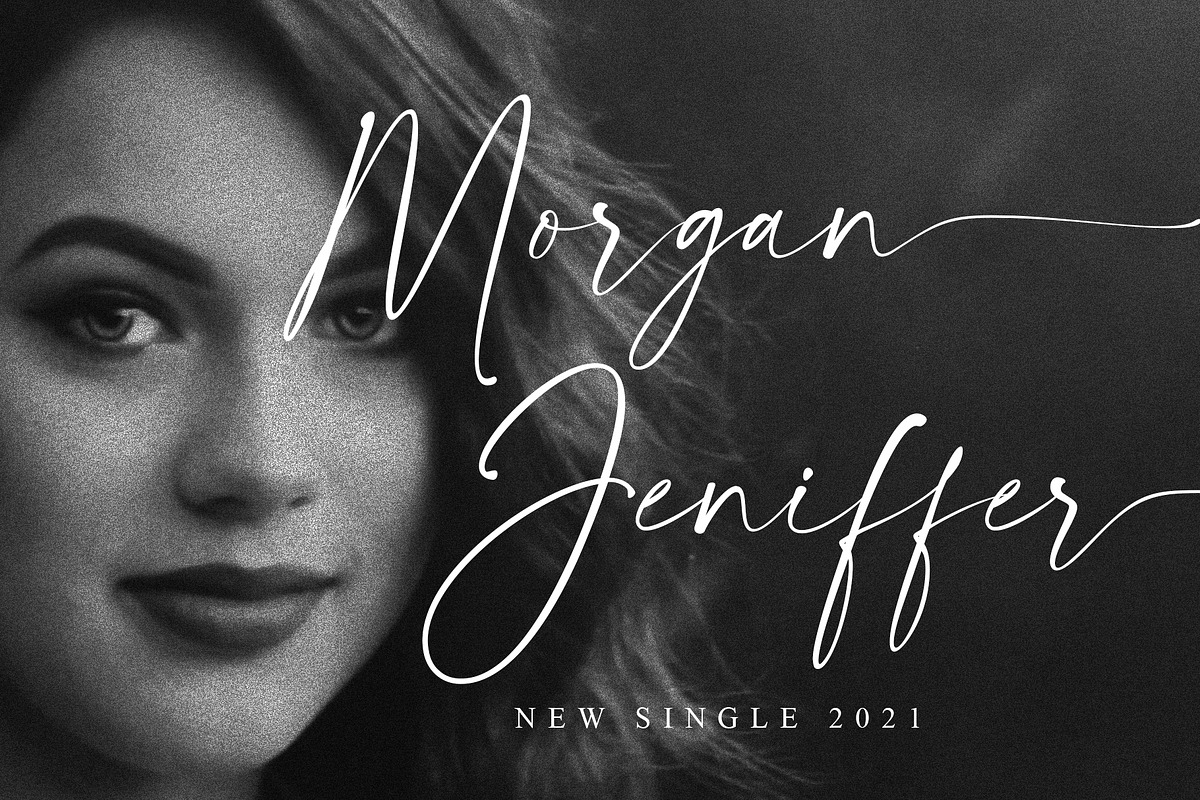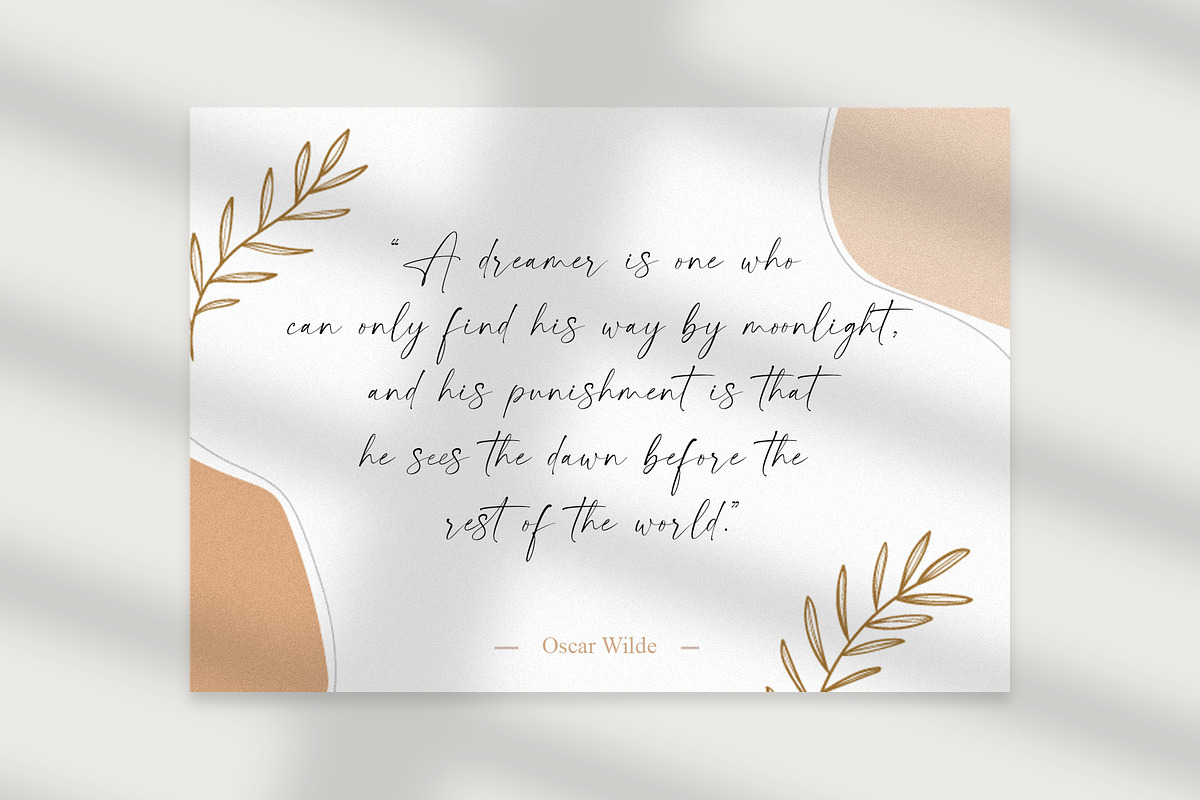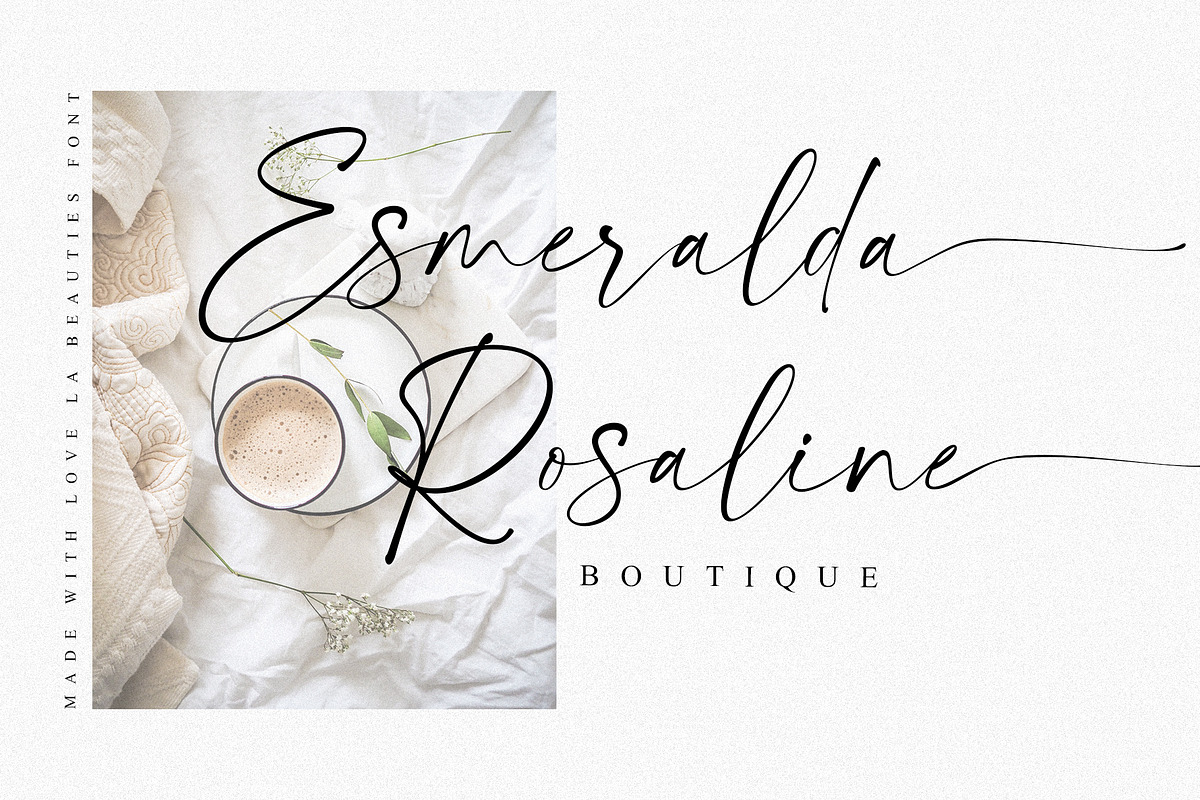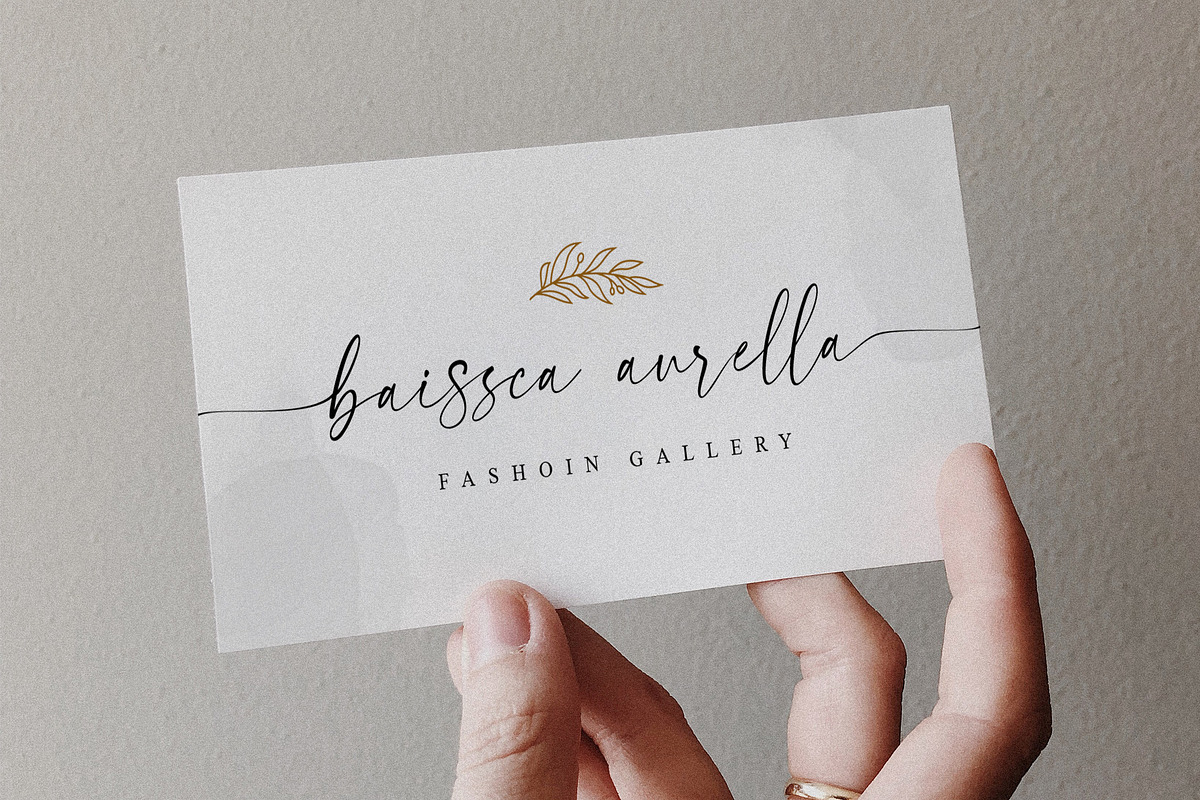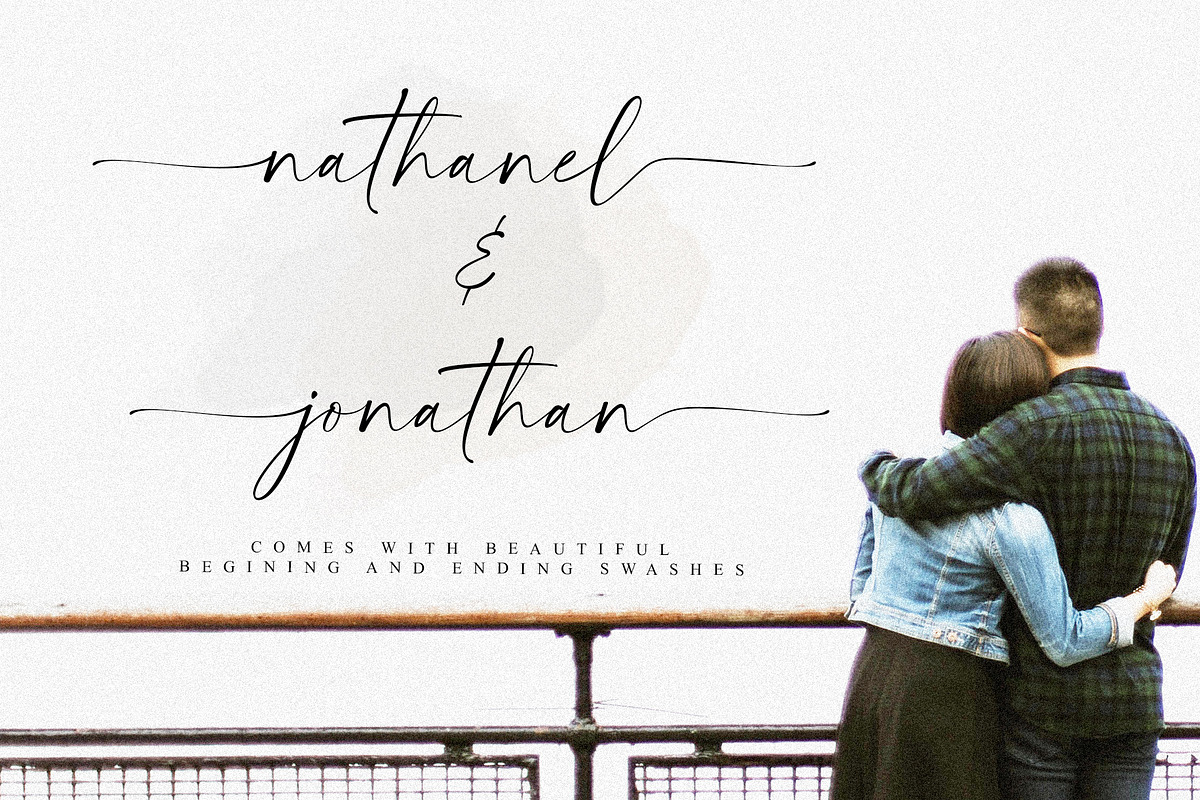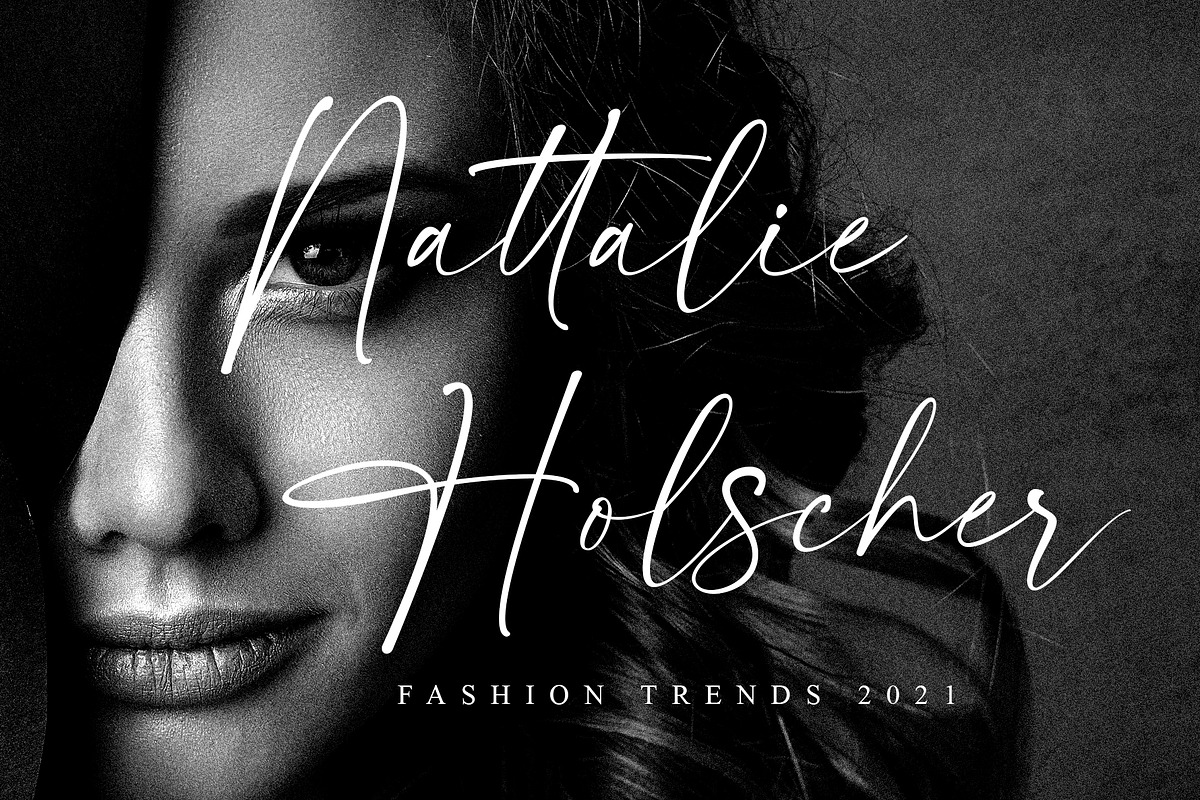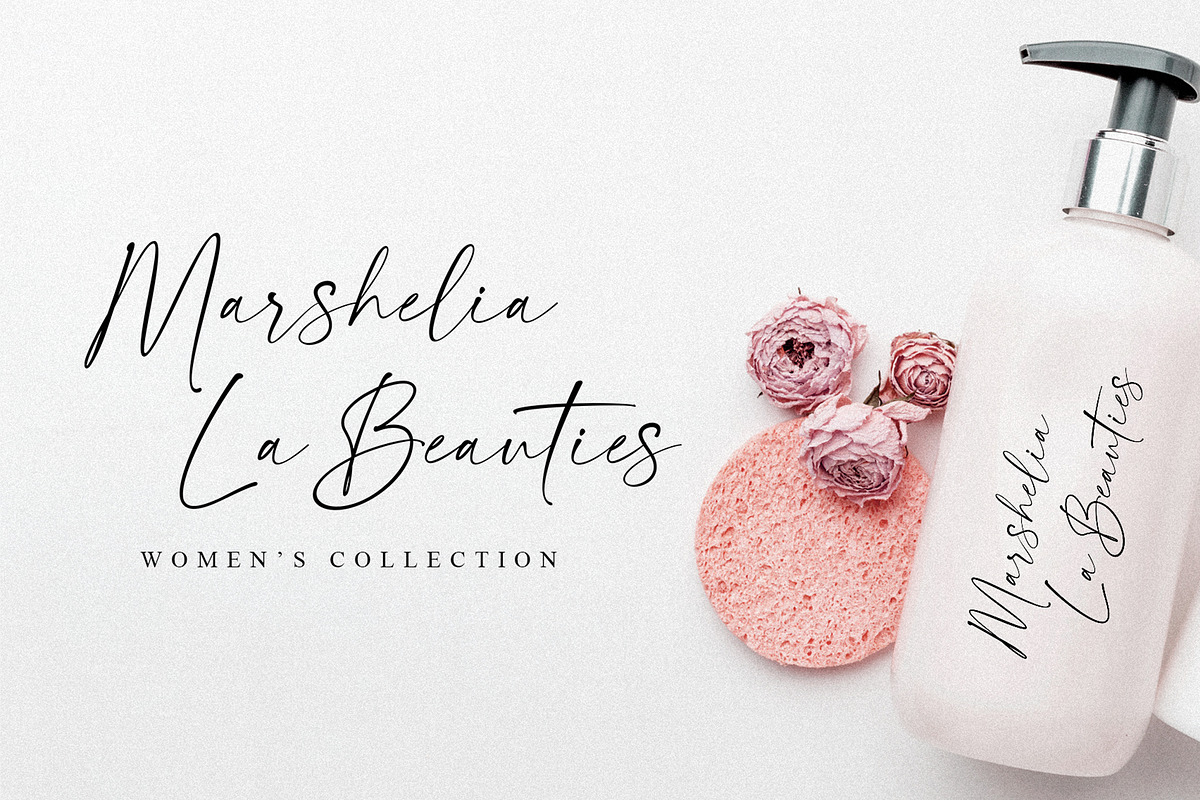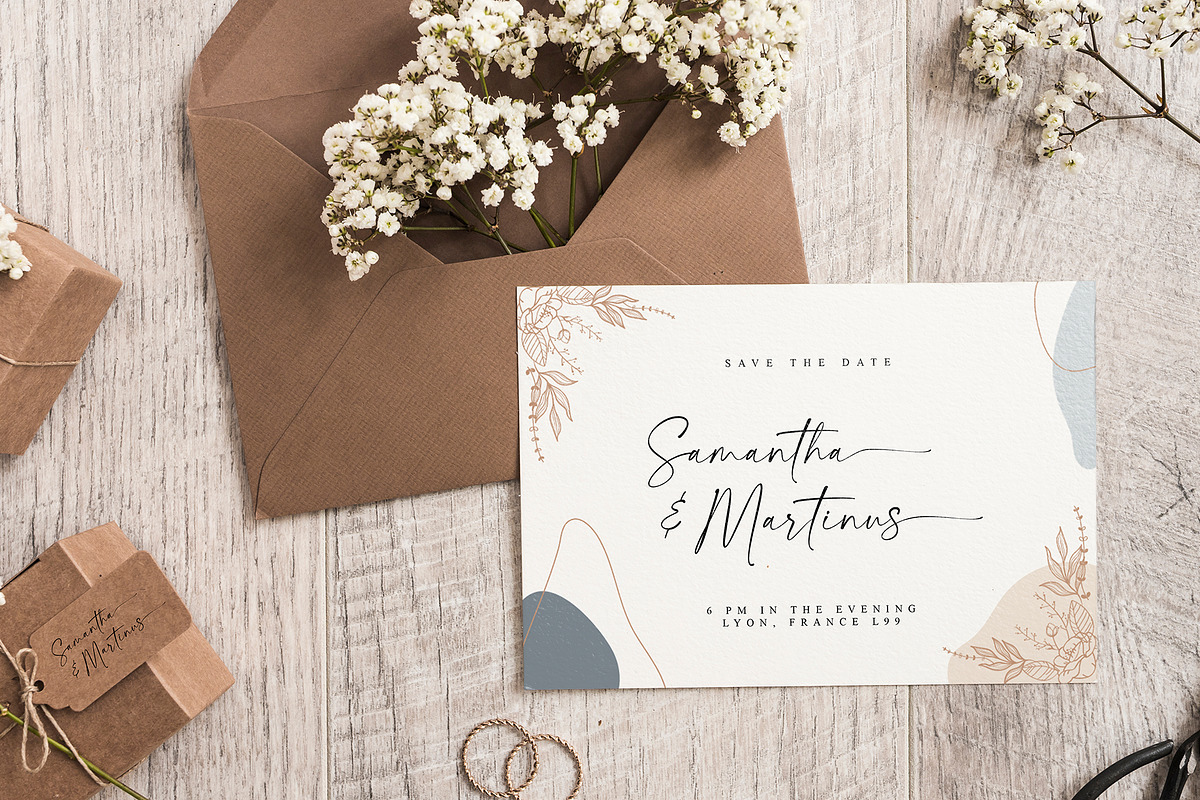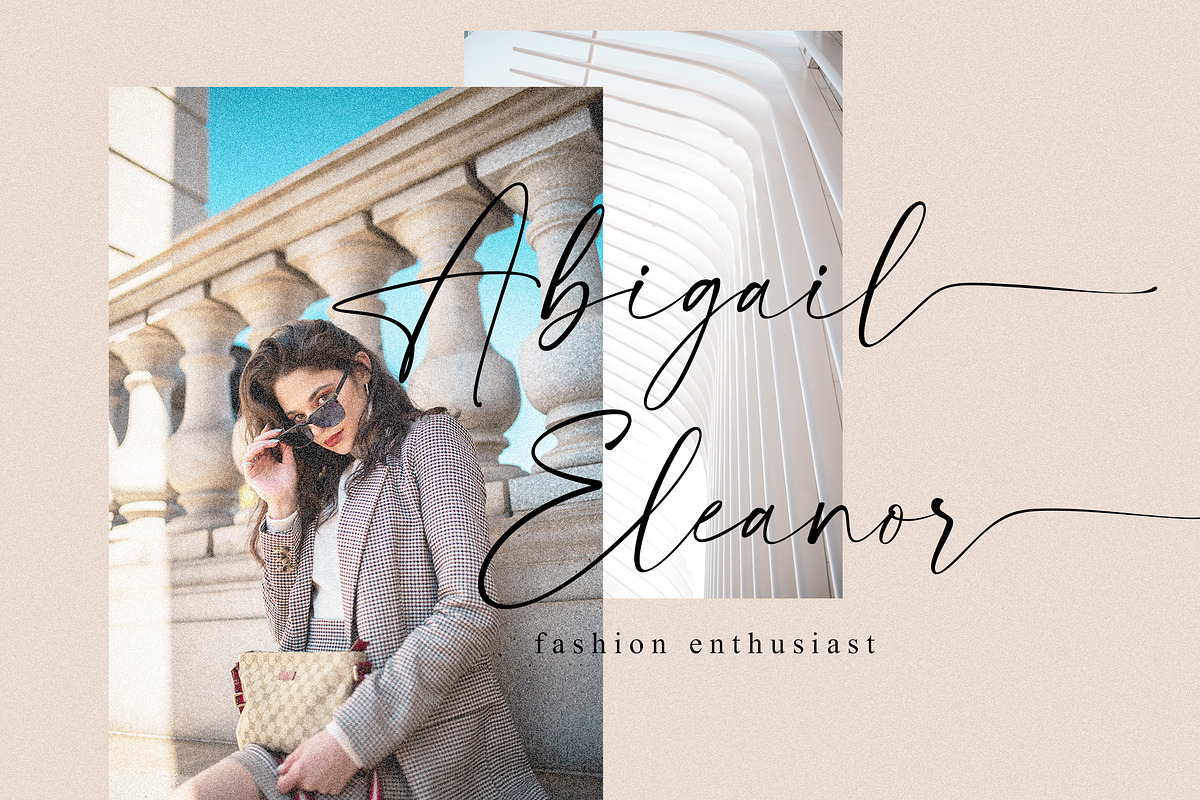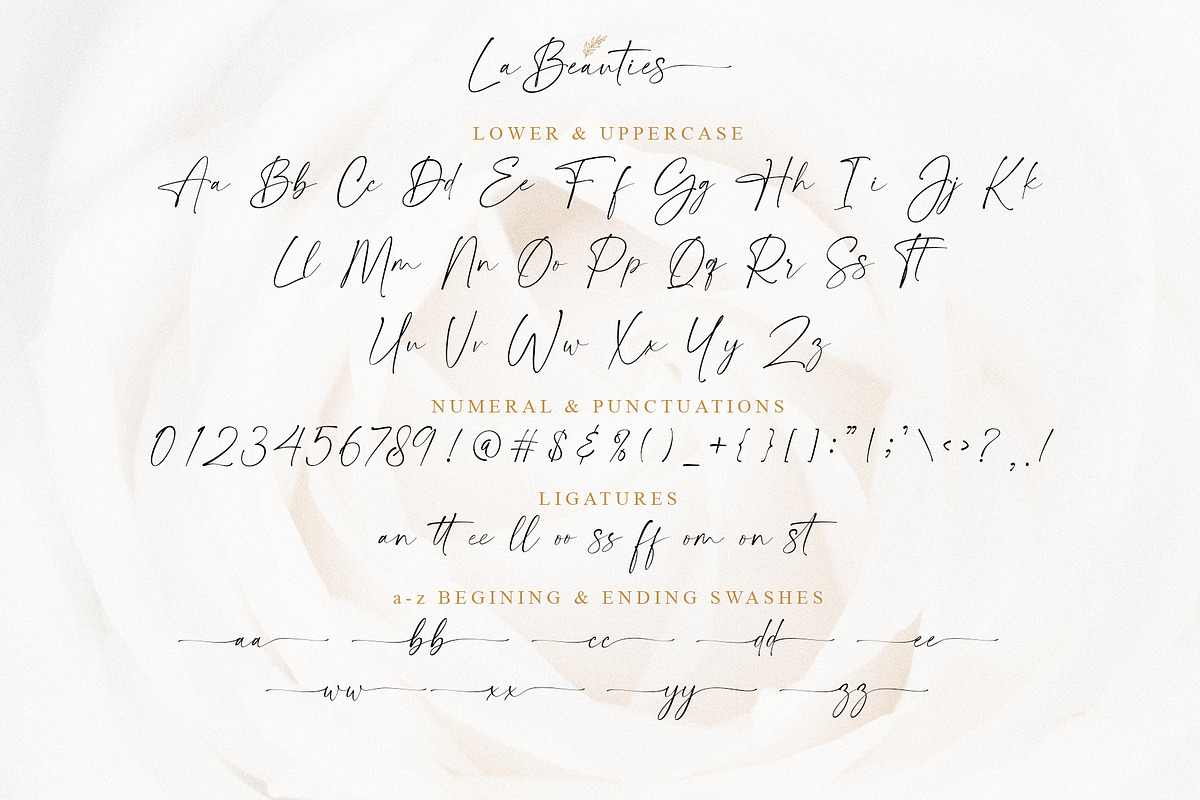
La Beauties | Casual Handwritten
La Beauties is an original, casual and modern handwritten font that comes with a distinctive chic character that adds unique value to the font, perfect for branding, wedding invites cards, and more.
La Beauties includes a full set of uppercase and lowercase letters, numerals, punctuations, and ligatures. The lowercase letters completed with beautiful beginning and ending swashes